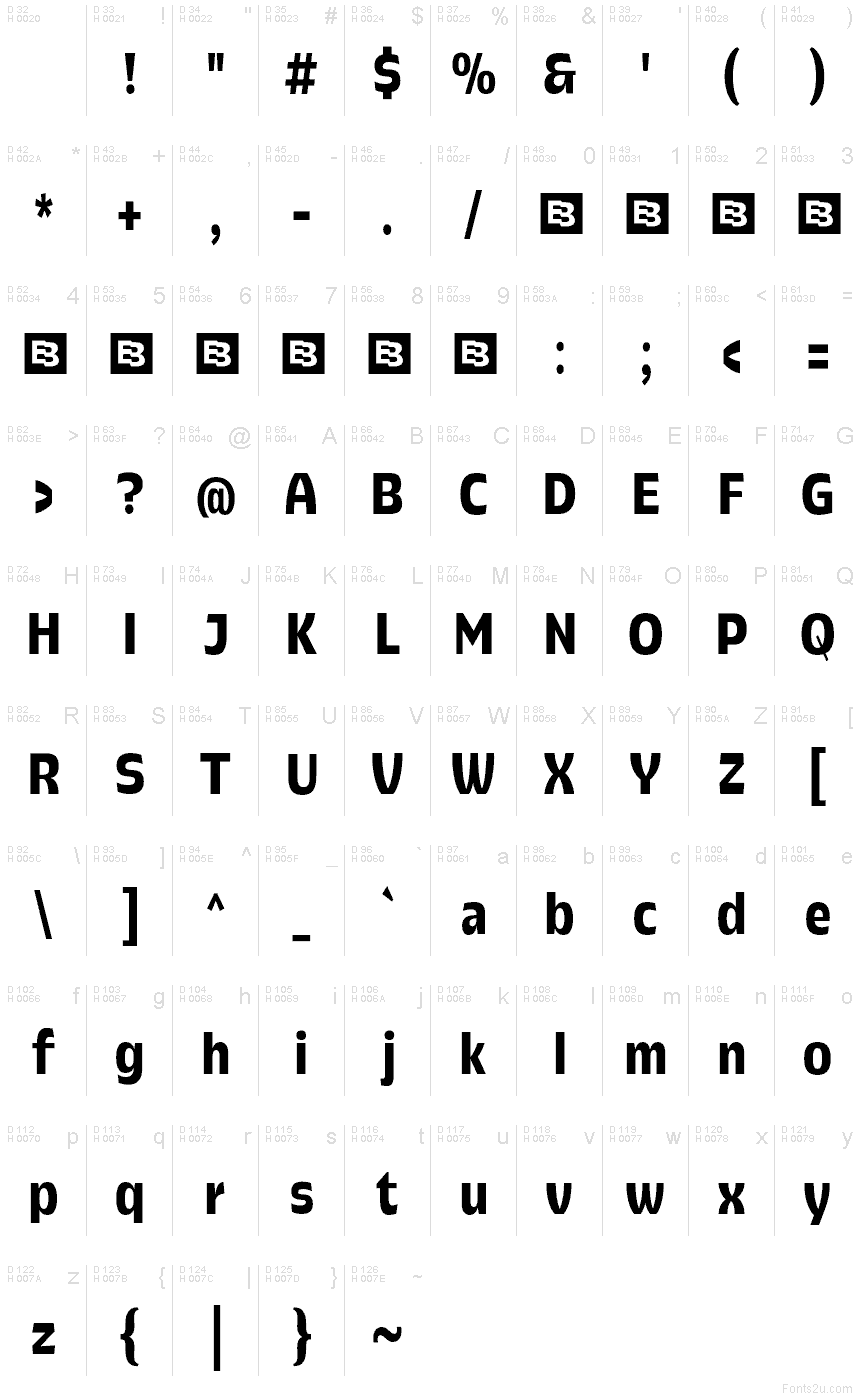
Pocas Trial Bold Condensed
Pocas Bold Condensed font by Eko Bimantara is a free bold condensed sans serif typeface. Built for tight spaces, it packs sturdy verticals and thick strokes into a compact width while keeping counters open and edges smoothly rounded. The result feels strong yet approachable—like a firm handshake—so your headline hits hard without shouting.
Using Pocas Bold Condensed, you can squeeze big impact into narrow layouts for posters, social graphics, packaging, event flyers, app headers, and banners. Its even rhythm and calm curves keep letterfit tidy at large sizes and remain legible when space is scarce. Pair this free font with another cut from the Pocas family for body text, or set generous tracking for oversized titles to let the forms breathe.